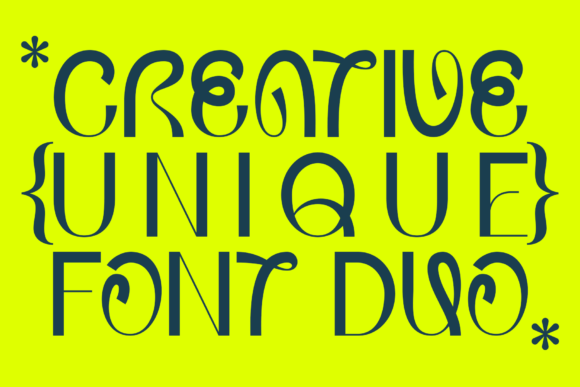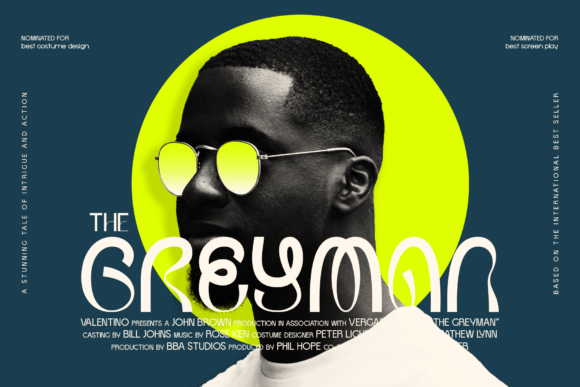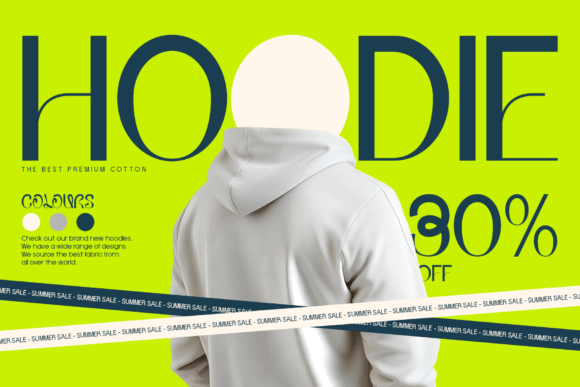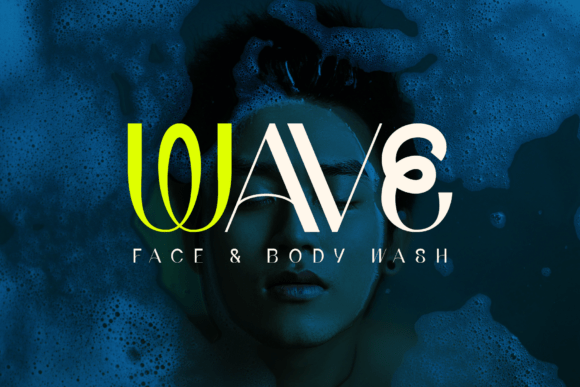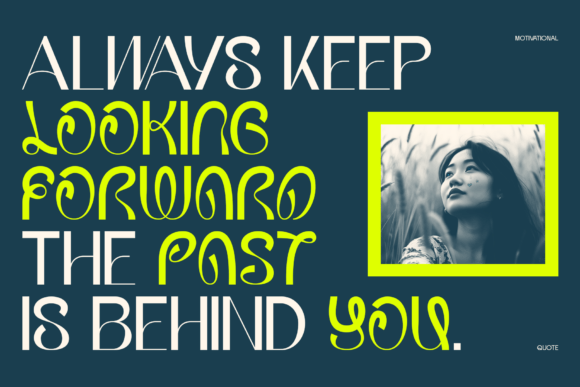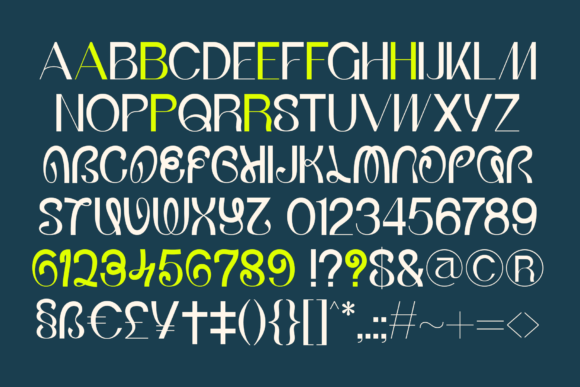
Introduction to Medona Font
Have you ever found yourself staring at a blank page, searching for the perfect font to bring your creative project to life? The right font can make all the difference, elevating your design from bland to grand. For designers, finding a font that stands out from the crowd can be a challenge. But what if I told you there’s a font that’s been designed to do just that?
Meet the Medona Font, a unique and modern font duo that’s sure to take your designs to the next level. With its elegant uppercase and creative lowercase styles, Medona Font offers a world of possibilities for designers looking to create distinctive and eye-catching designs.
Key Features of Medona Font
- High-quality design resource ideal for creative projects requiring elegant typography.
- Unique characteristics, including intricate details and subtle nuances, make it stand out from other fonts.
- Perfect for designers looking for a sophisticated and stylish font to elevate their creative projects.
Honest Review: Medona Font
I recently came across the Medona Font, a beautiful design resource that’s quickly become a favorite in my creative projects. The first thing I noticed was the high quality of the font – it’s crisp, clean, and perfect for a variety of applications.
One thing I wish was different is the limited character set – it’s not ideal for projects that require a wide range of characters. Additionally, the font may not be suitable for very large or complex designs, as it can become difficult to read at larger sizes.
- ⚠️ Limited character set may not be suitable for all projects
- ⚠️ May not be ideal for very large or complex designs
Overall, I’m really impressed with the Medona Font. It’s a great addition to any designer’s toolkit, and I’ve already used it in several of my projects. If you’re looking for a high-quality font that’s easy to use and customize, I’d definitely recommend checking it out.
Using Medona Font in Creative Projects
Medona Font is perfect for various creative projects, including graphic design, digital art, and web design. Its unique style and high quality make it an ideal choice for designers looking to add a touch of elegance to their work.
Medona Font is commonly used for:
- Business cards and logos
- Web design and UI/UX